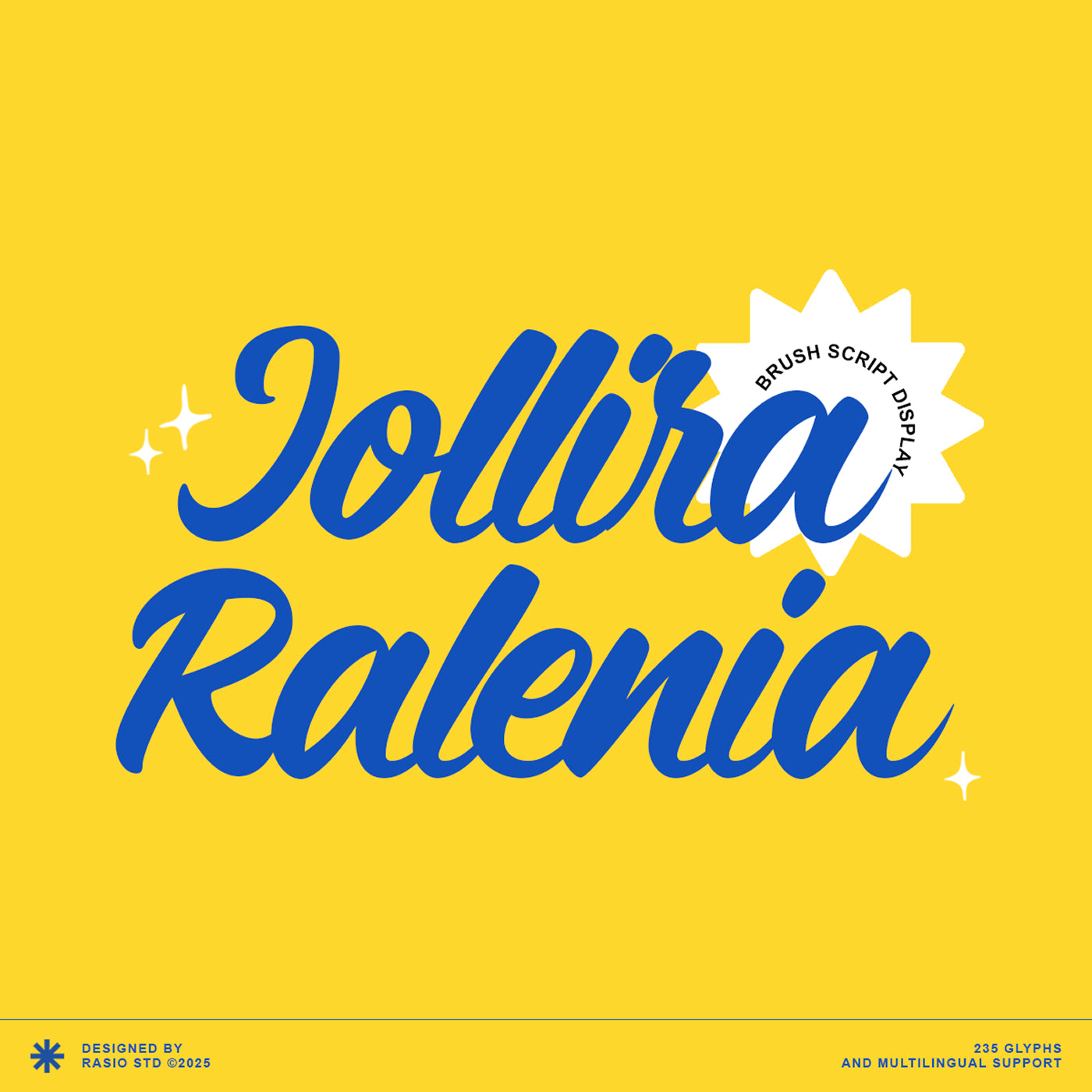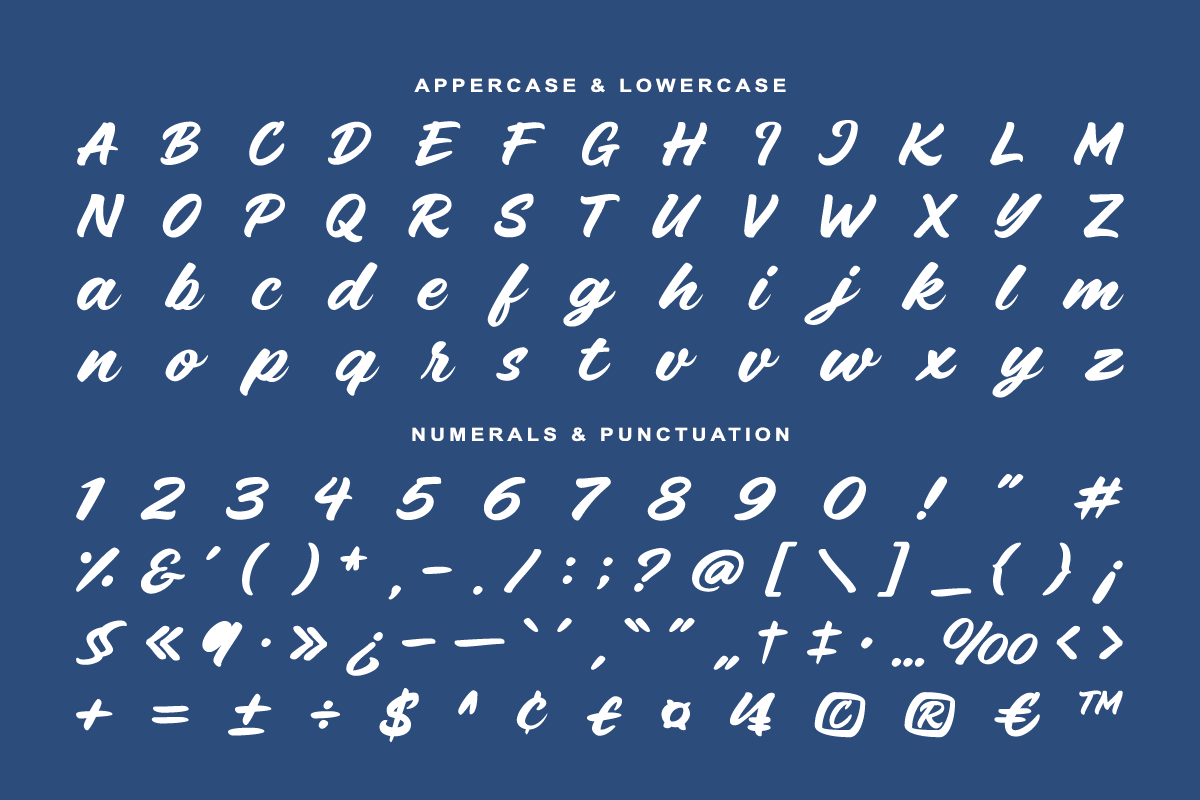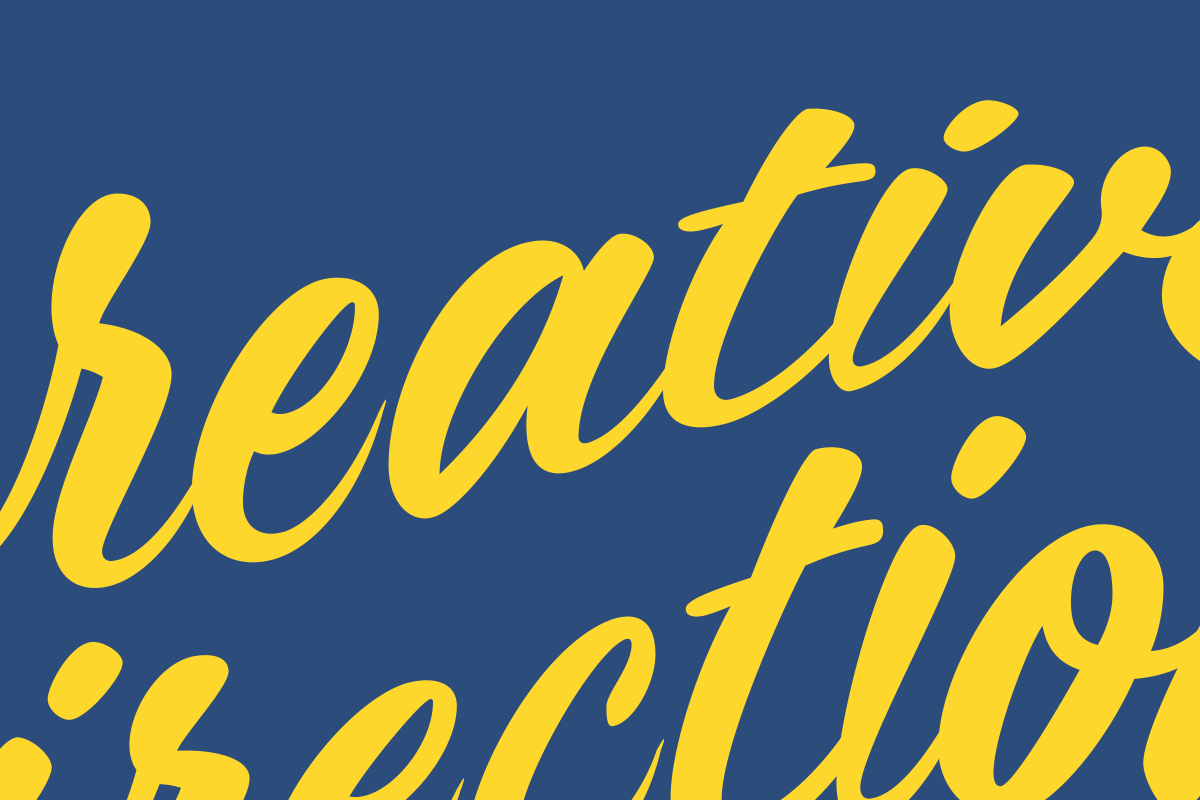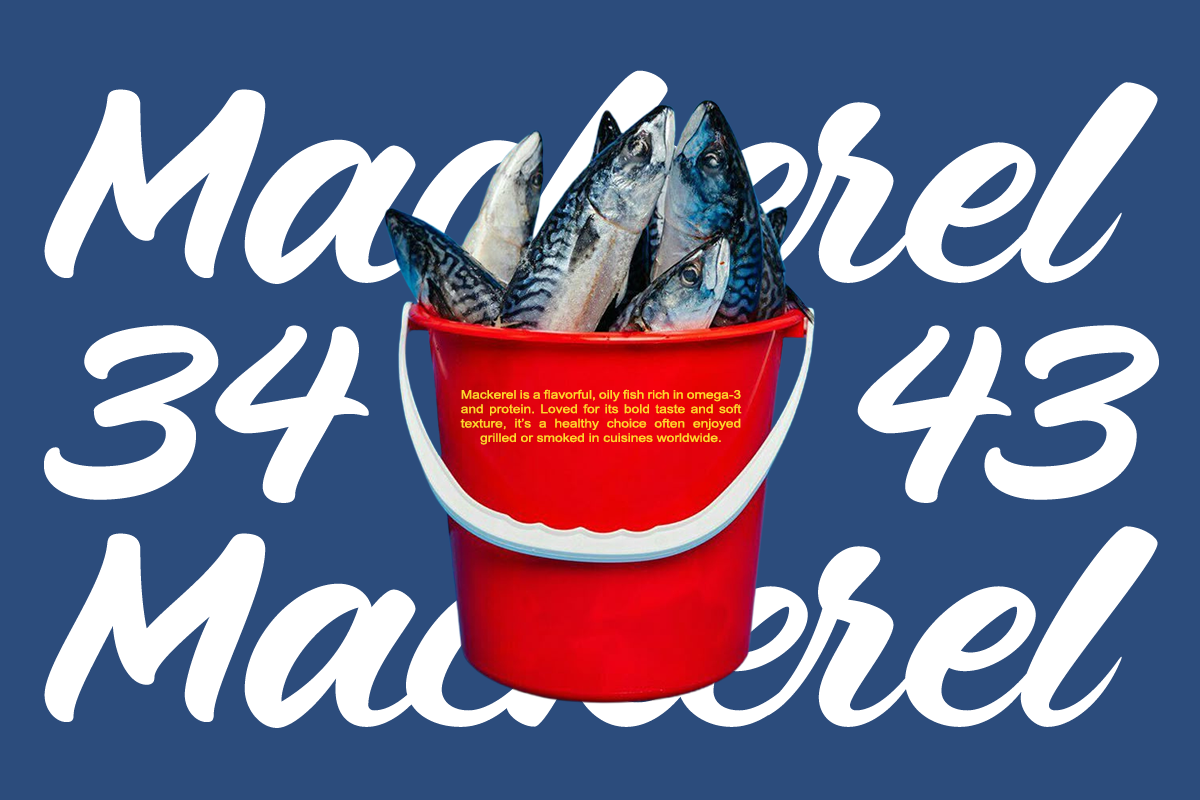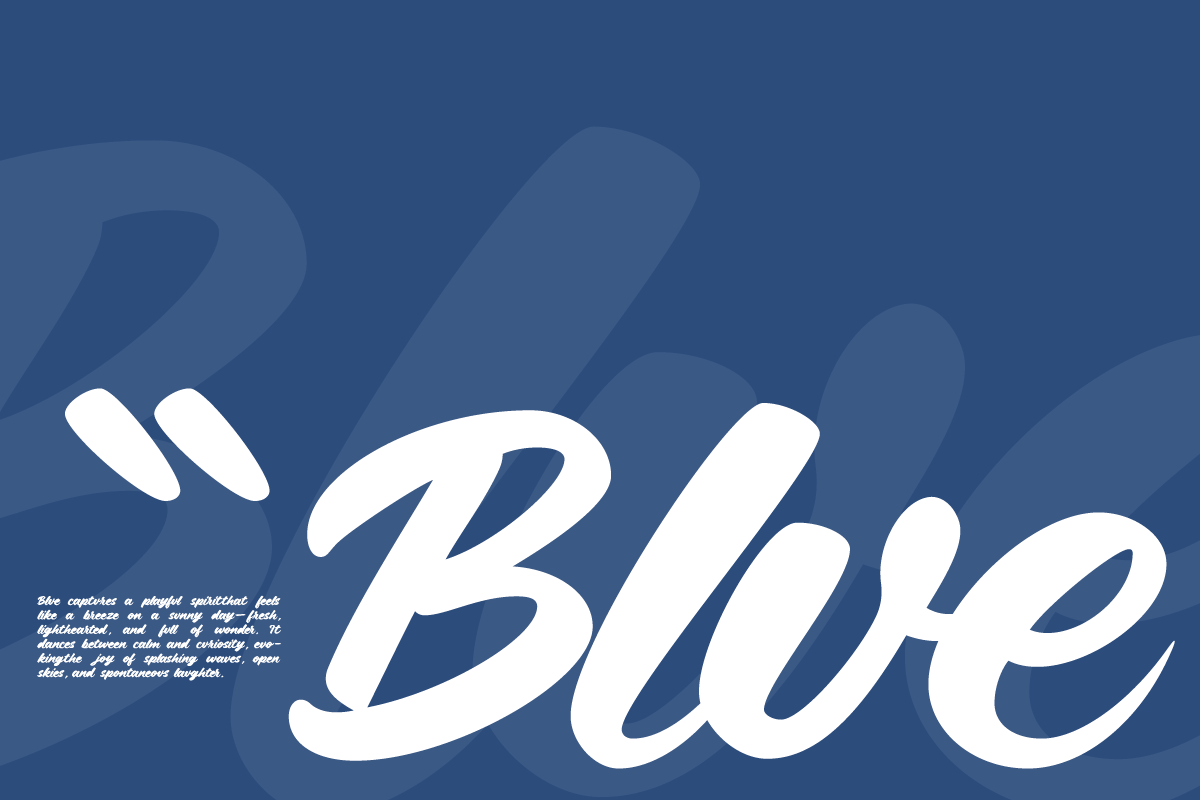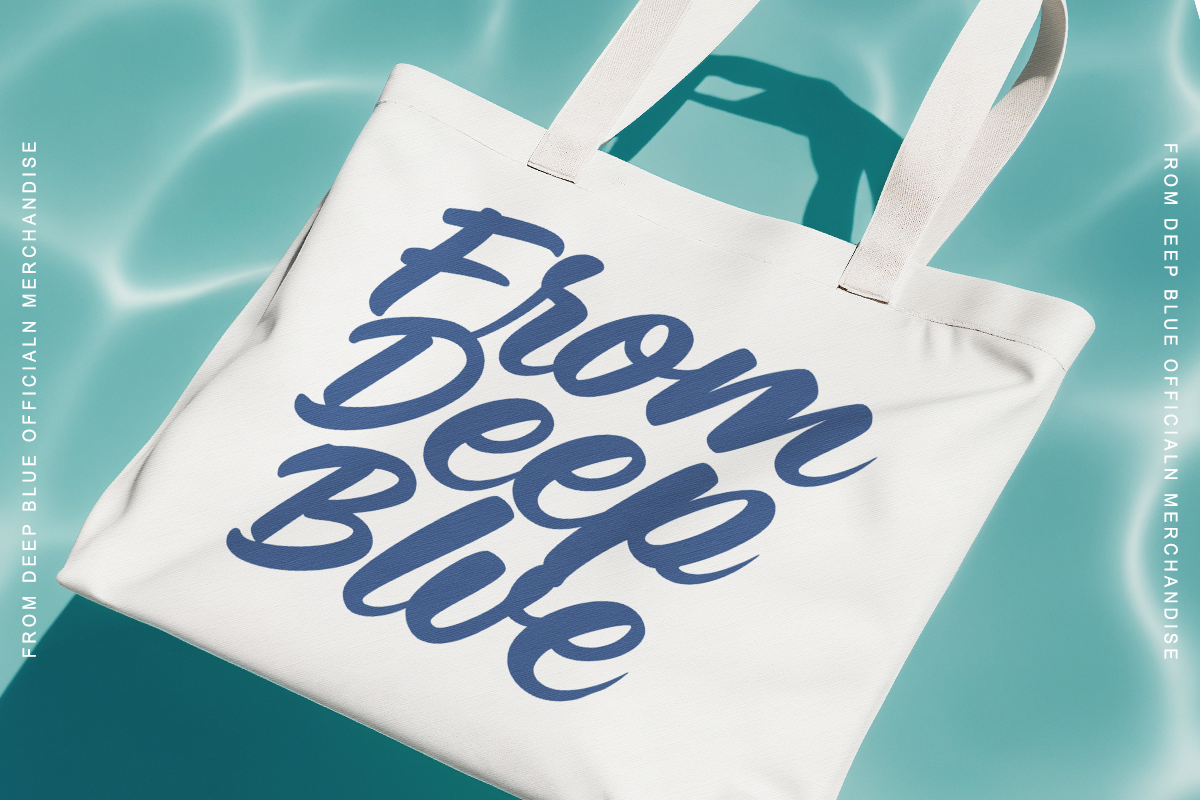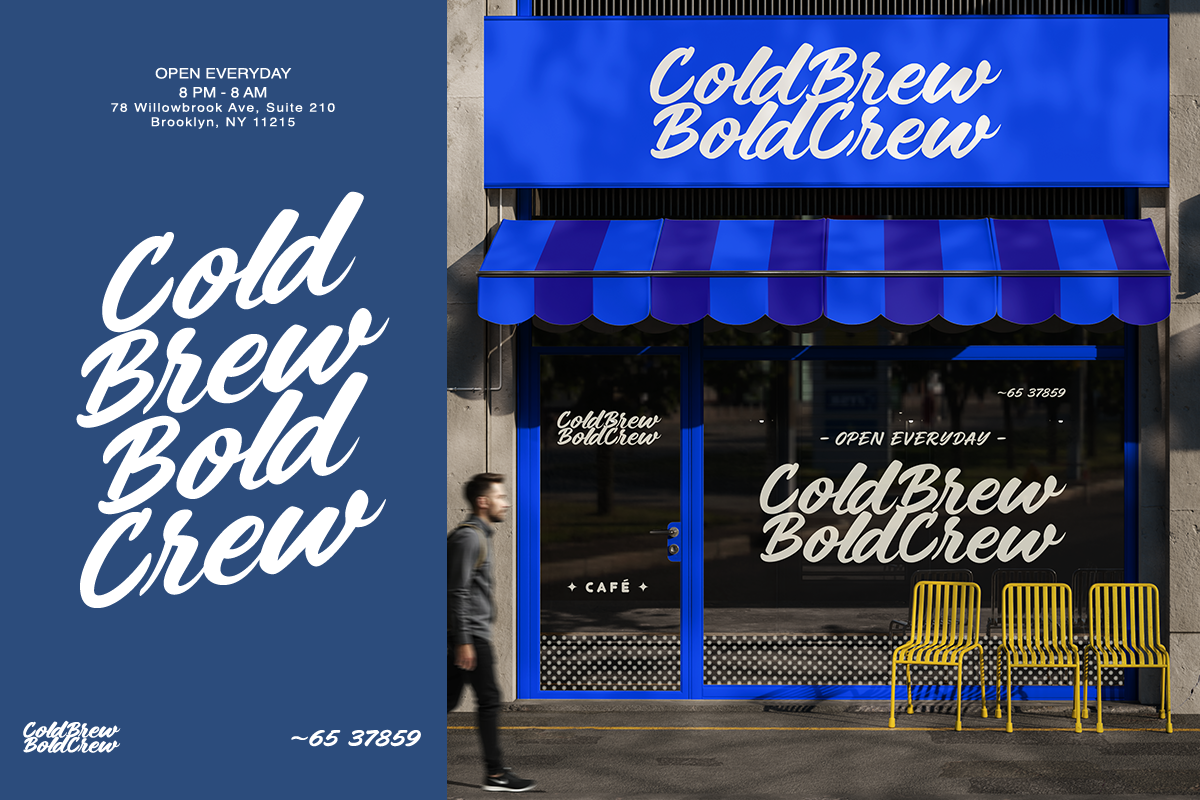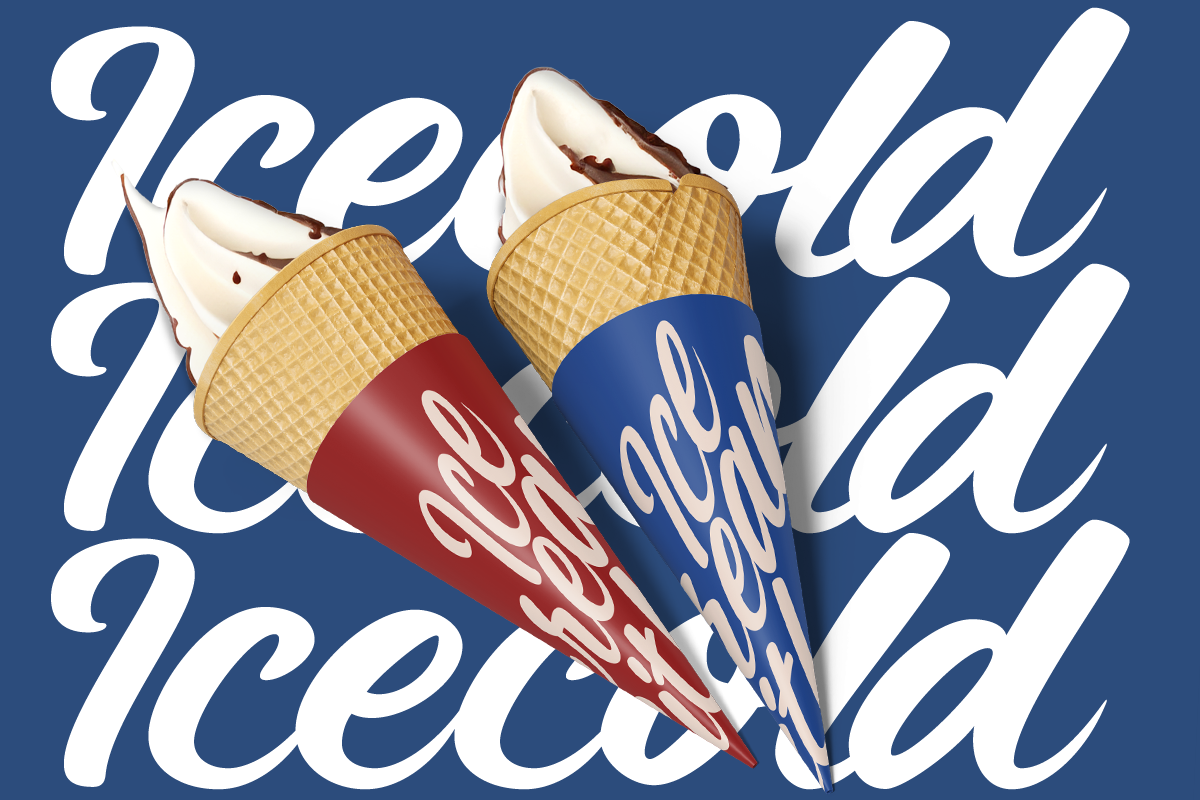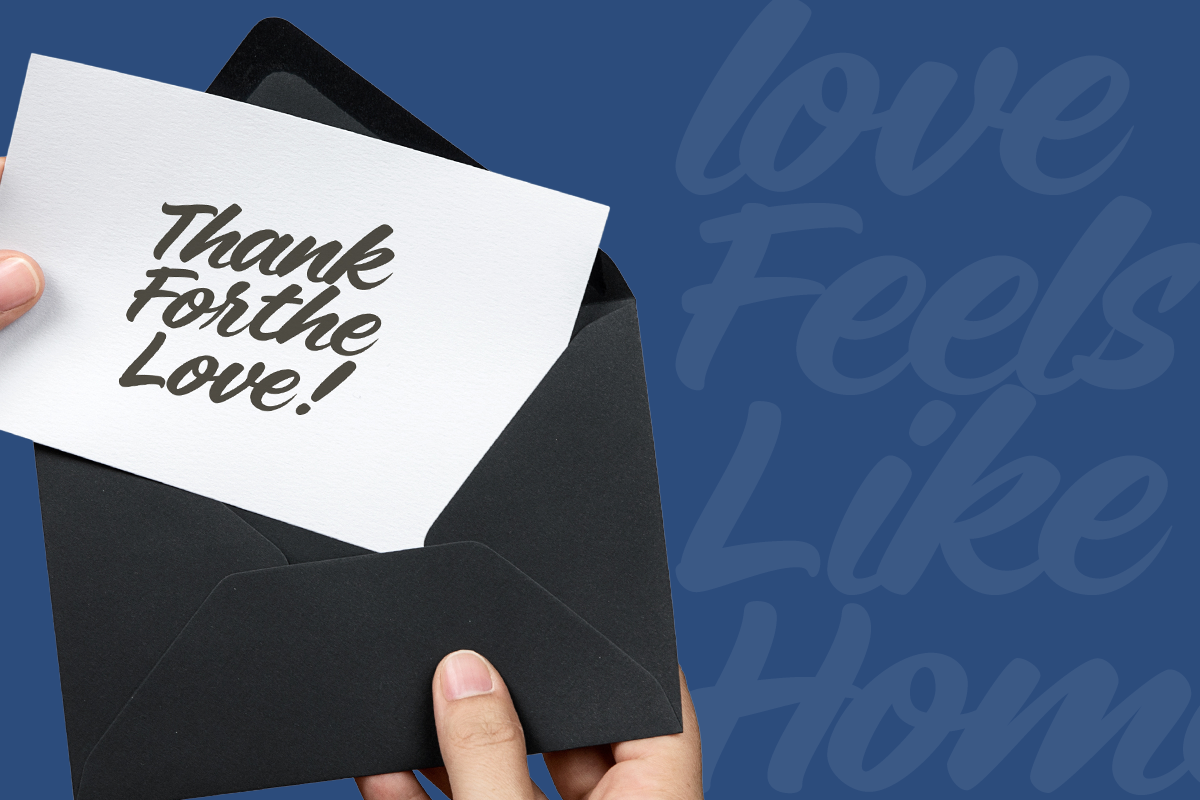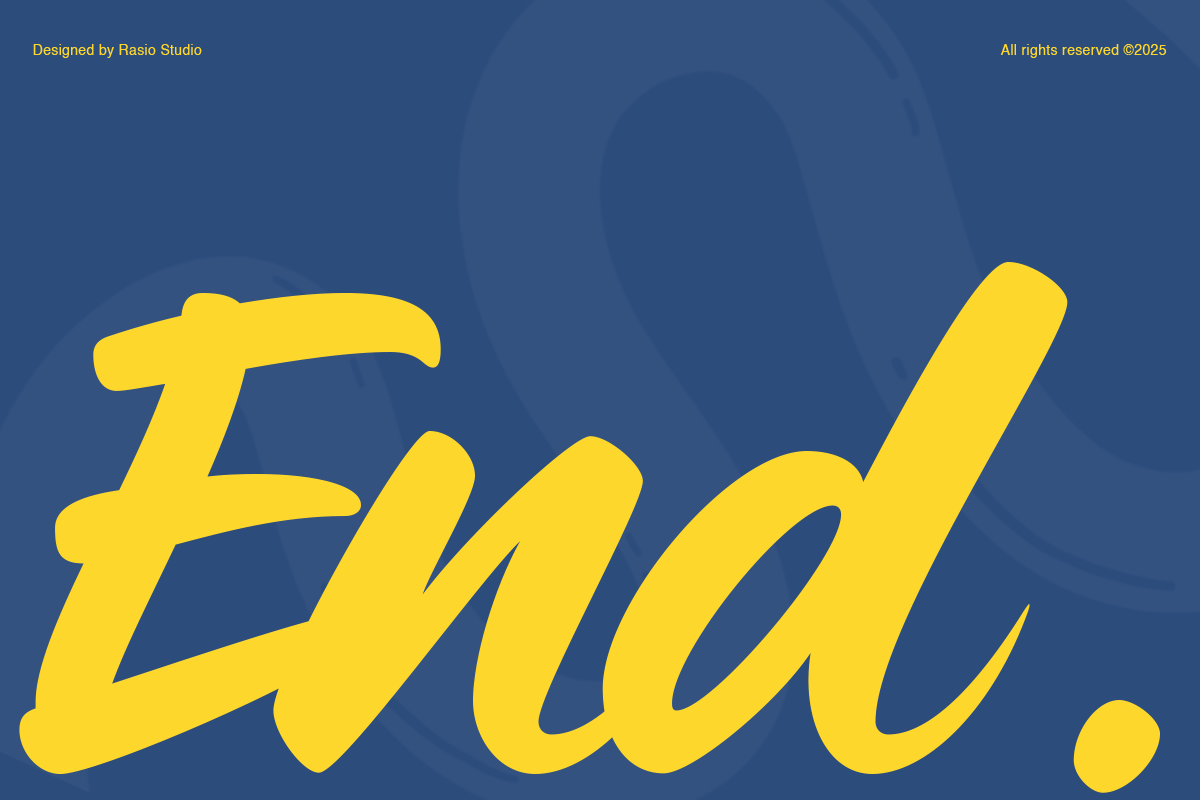
Jollira Ralenia Brush Script Display Font
Jollira Ralenia is a bold brush script display font with smooth handwritten curves and an energetic stroke rhythm. Designed to bring a personal, expressive, and friendly character to branding, packaging, posters, social media design, and logotype creations. The natural brush texture gives it a handmade feel while still remaining clean and legible. Includes uppercase, lowercase, punctuation, numerals, multilingual accents, and stylistic alternates for flexible creative use.
Relevance and Use Cases is perfect for logo lettering, retro signage, bold product packaging, coffee shop branding, music poster titles, creative social media quotes, handmade craft labels, event invitations, and playful advertising headlines.
Jollira Ralenia is a bold brush script display font featuring smooth handwritten curves and a natural brush texture. It includes uppercase and lowercase letters, punctuation, numerals, multilingual accents, and stylistic alternates, available in TTF, OTF, and WOFF formats.